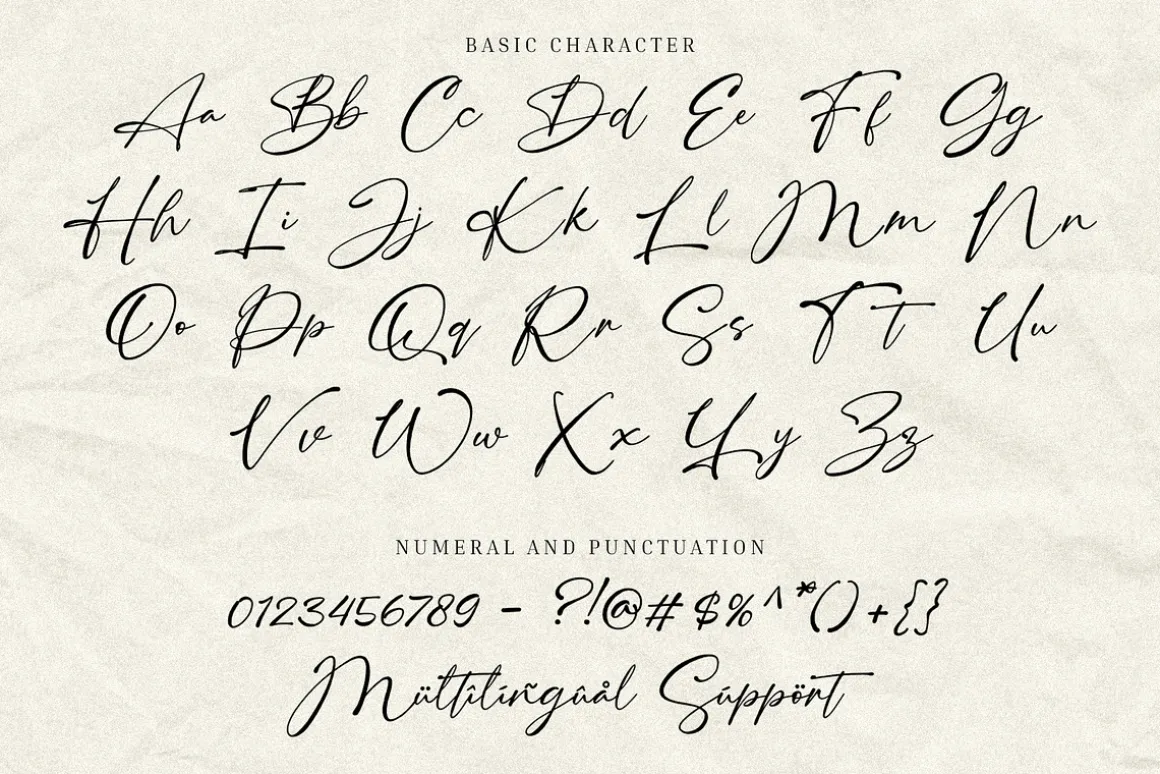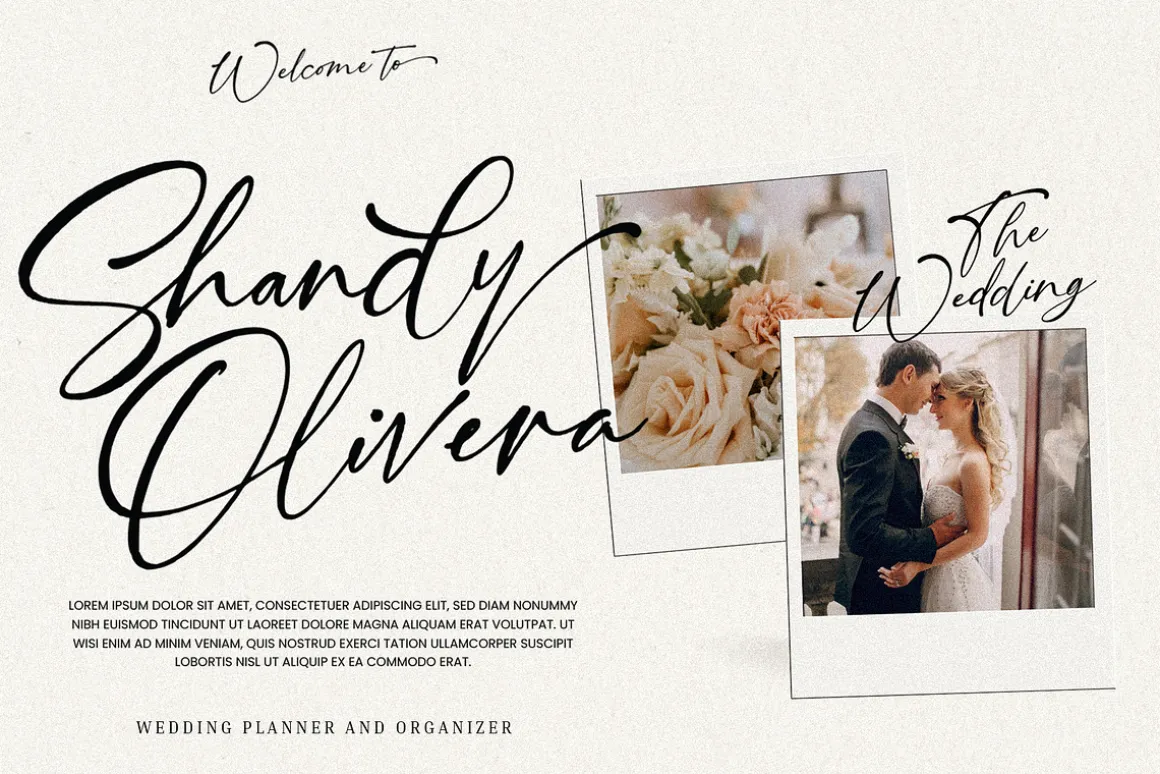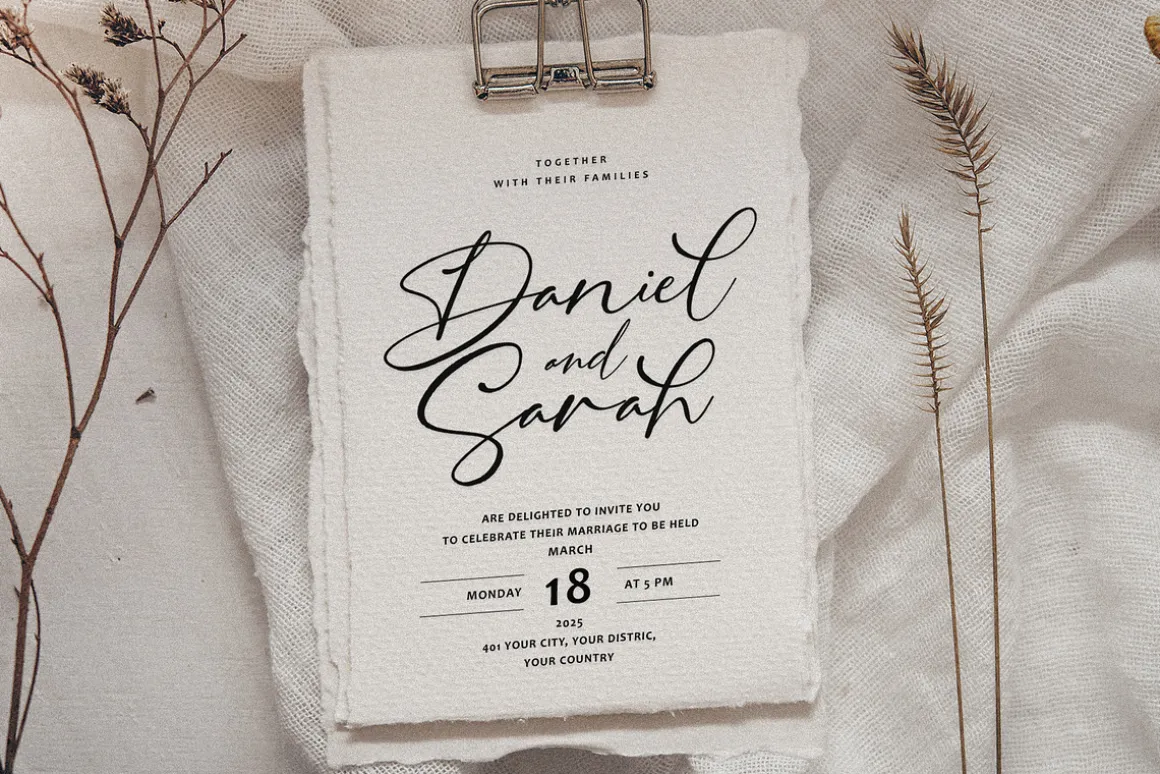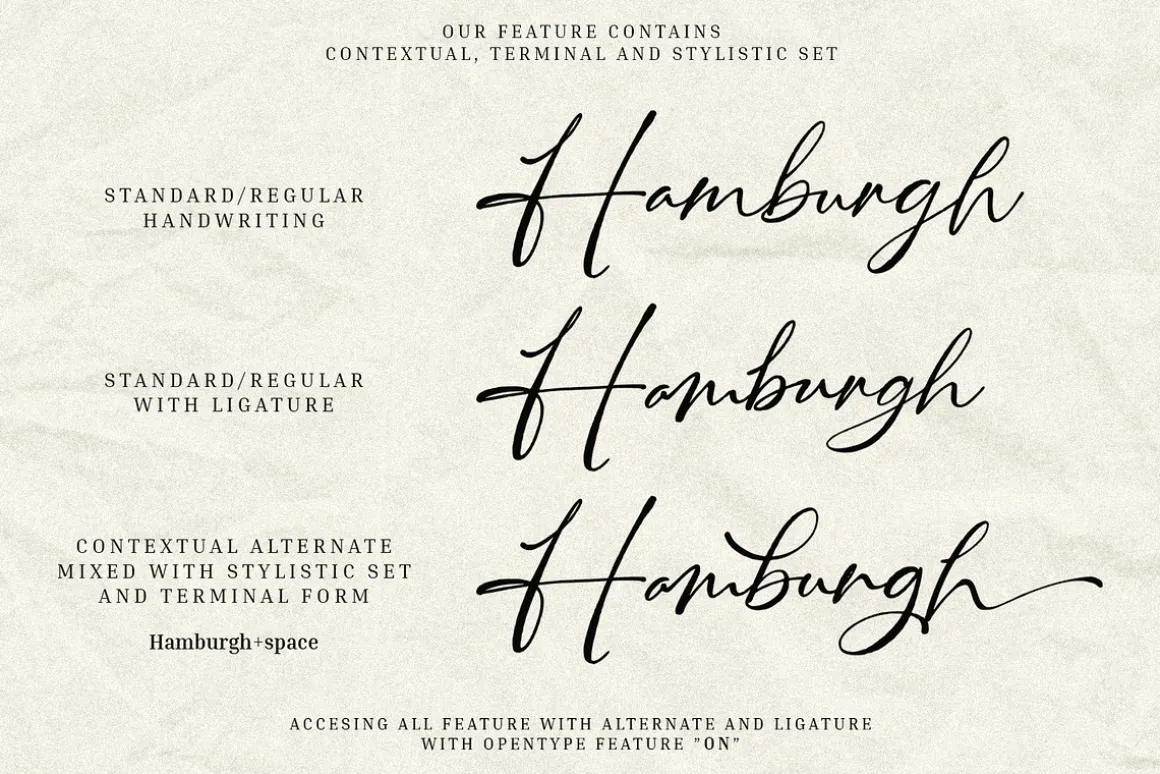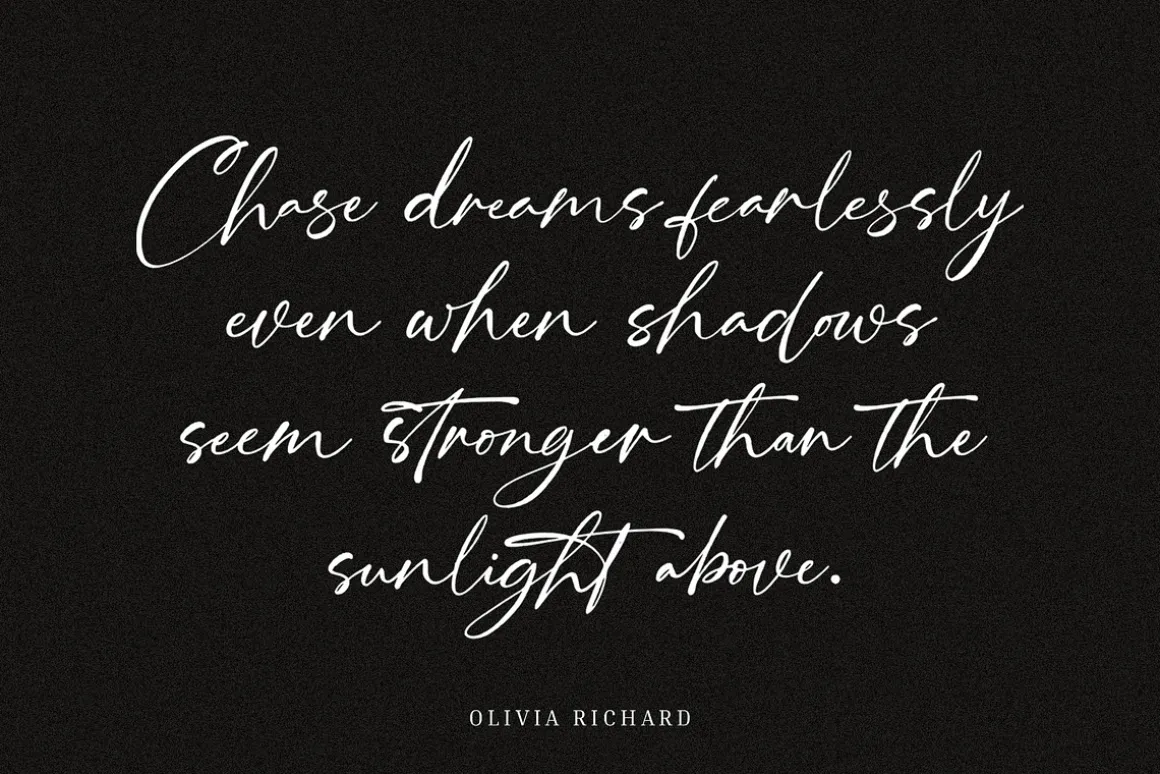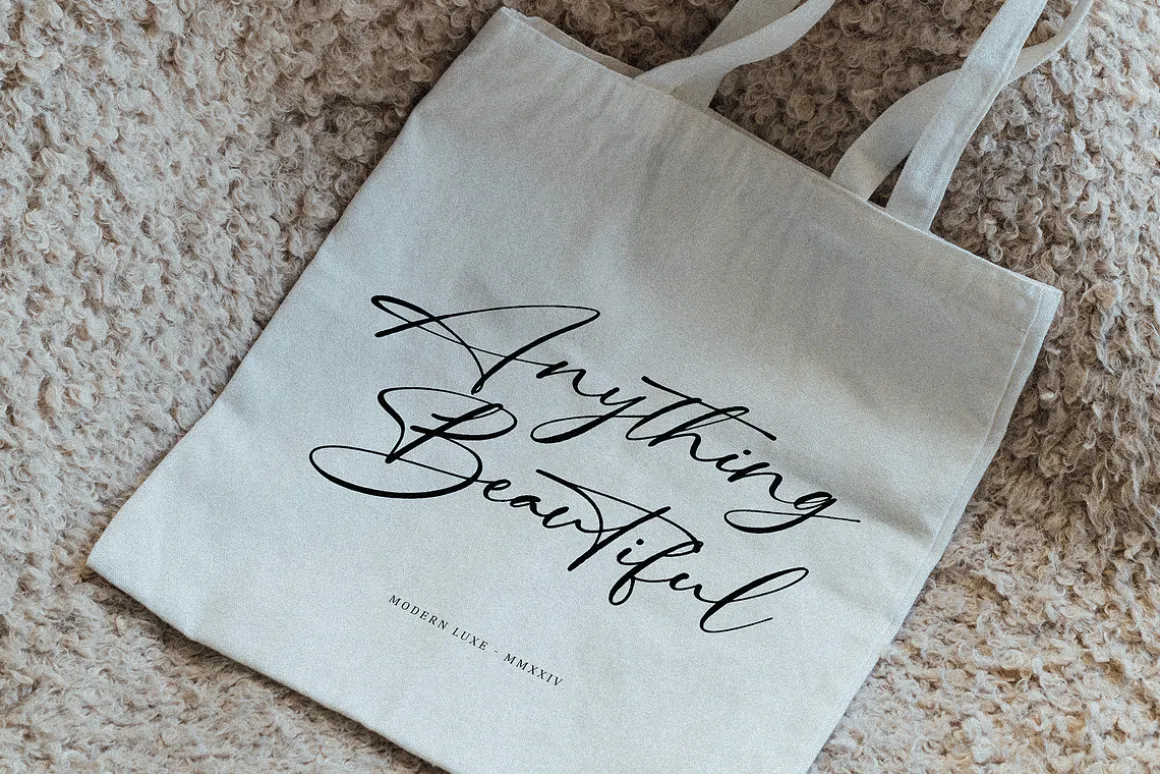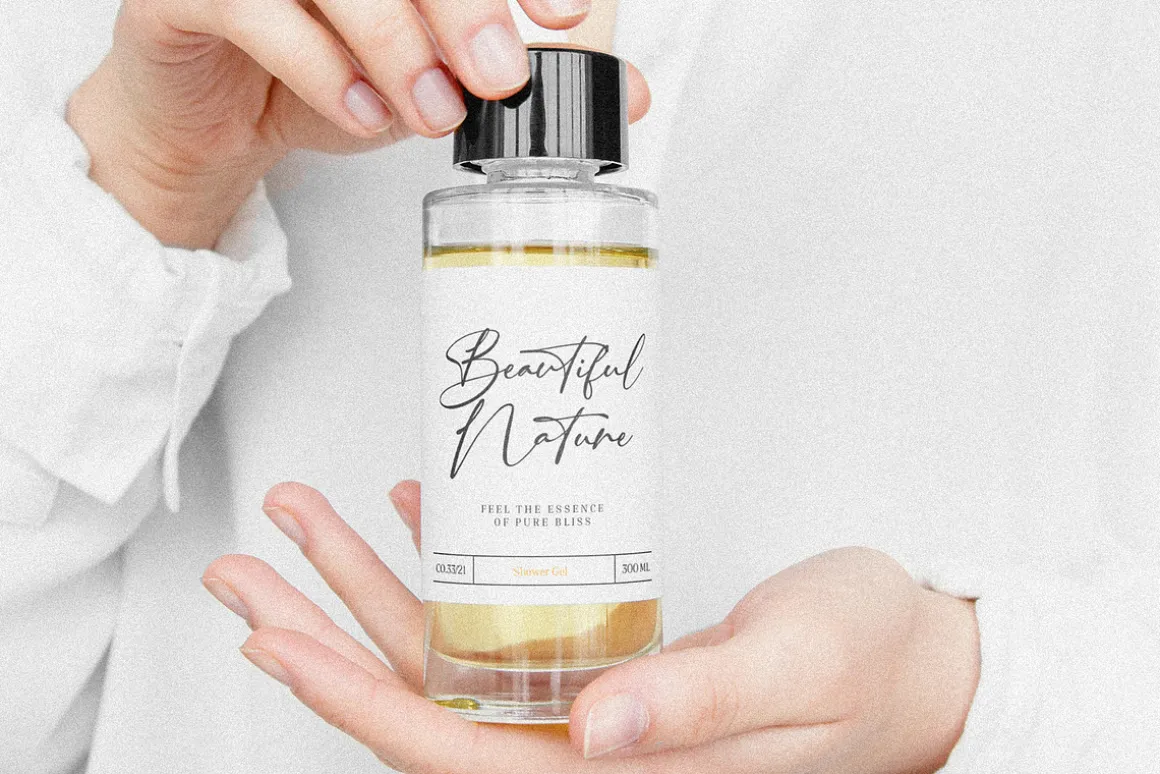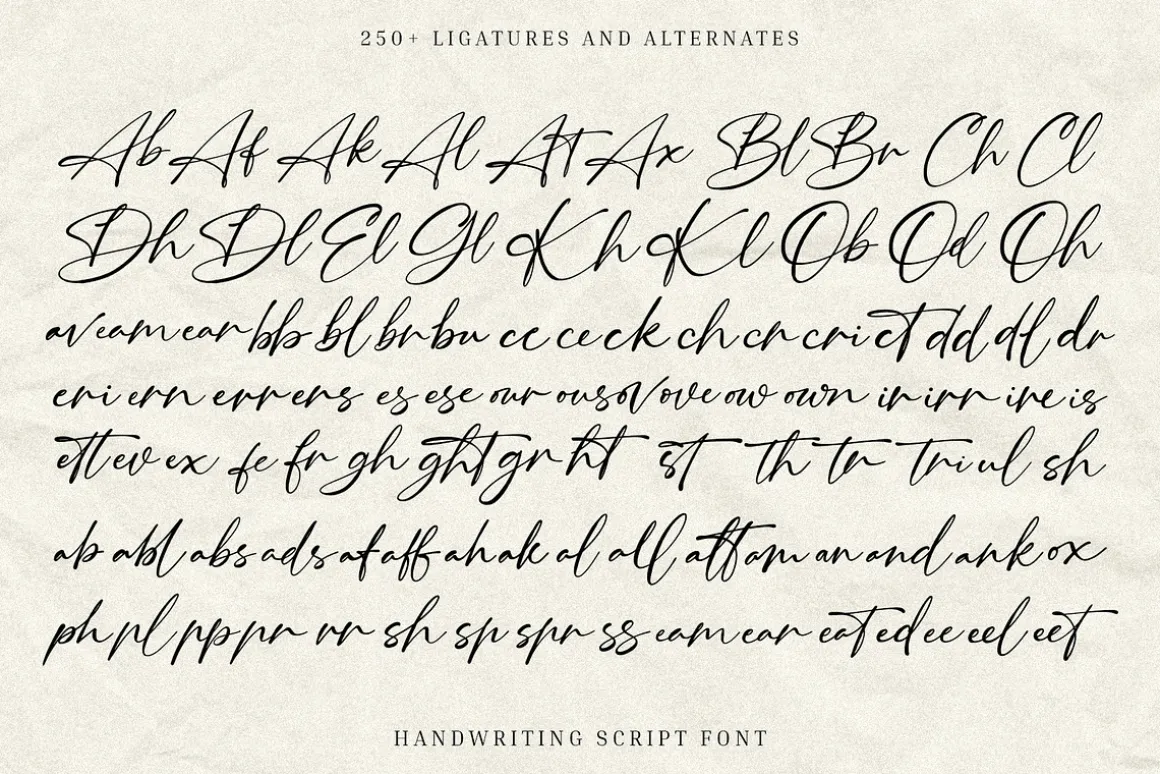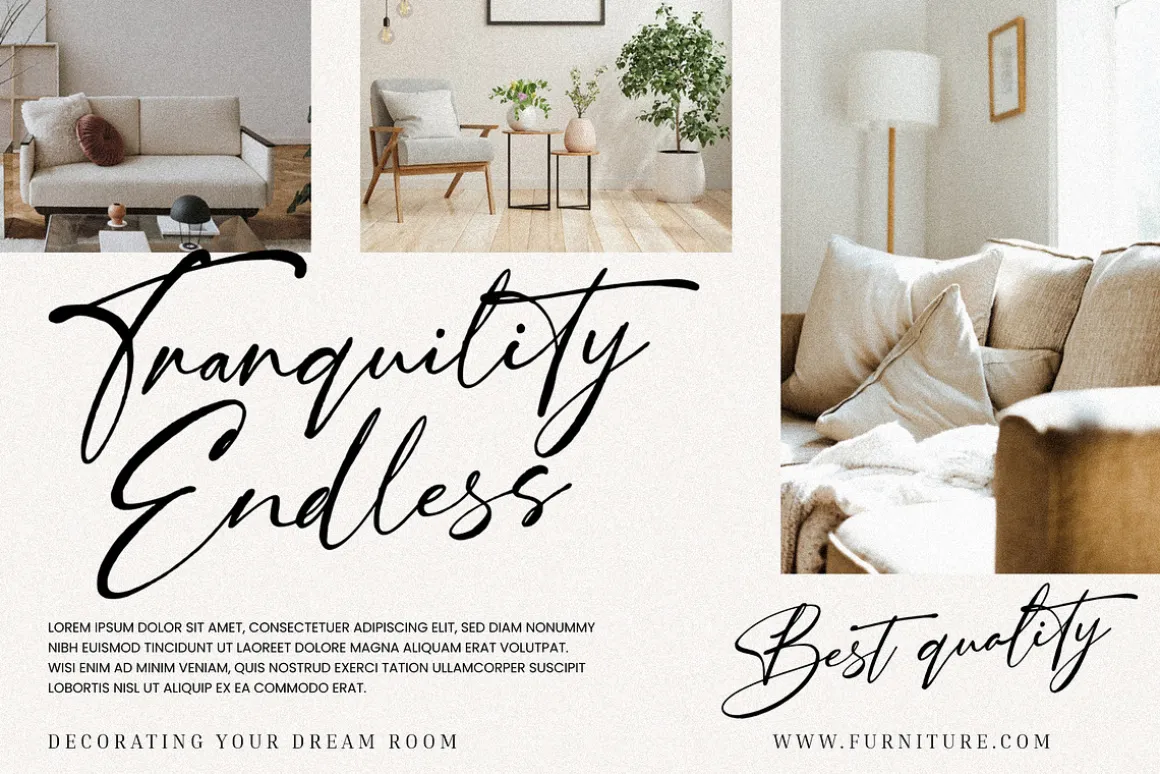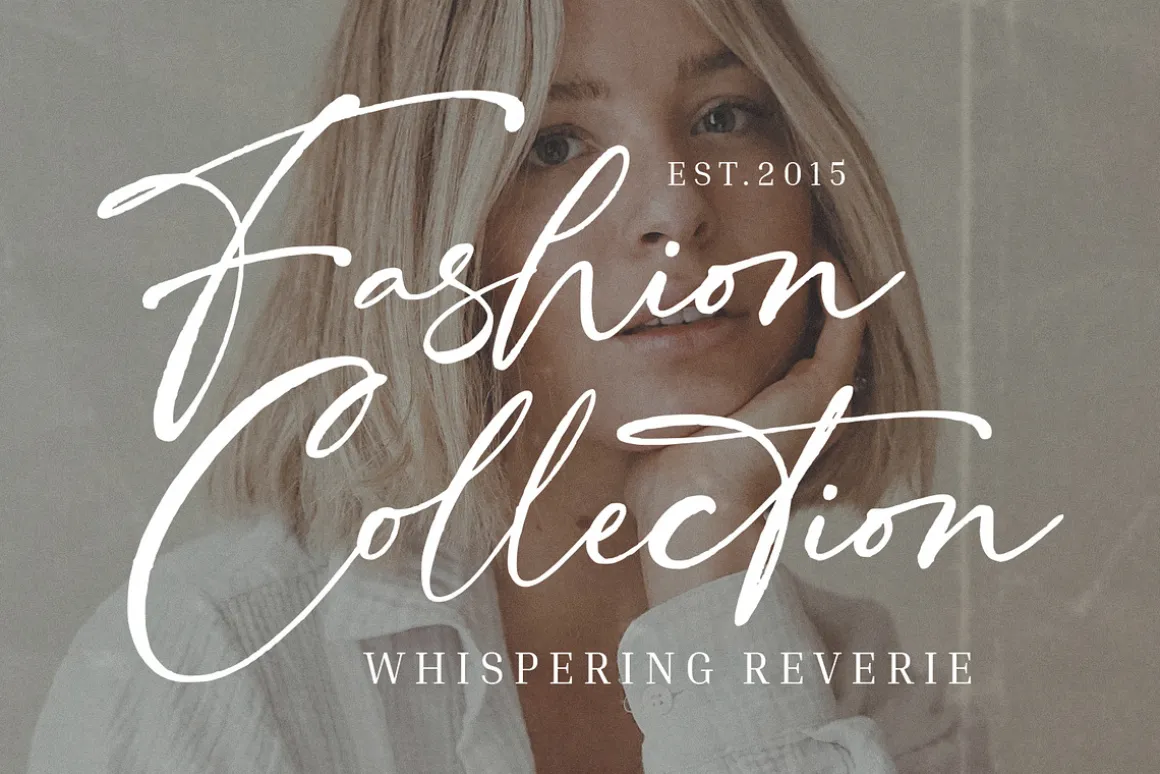
Southwest Partisan Handwriting Font
Elegant Handwriting Font with natural, flowing lines, ideal for logos, quotes, and wedding designs, bringing a unique, handcrafted feel.
- Uppercase & Lowercase Characters: Fully designed for a complete typographic experience
- Numerals & Punctuation: All the numbers and punctuation marks you need for any design task
- Multilingual Support: Includes characters for multiple languages, ensuring global usability